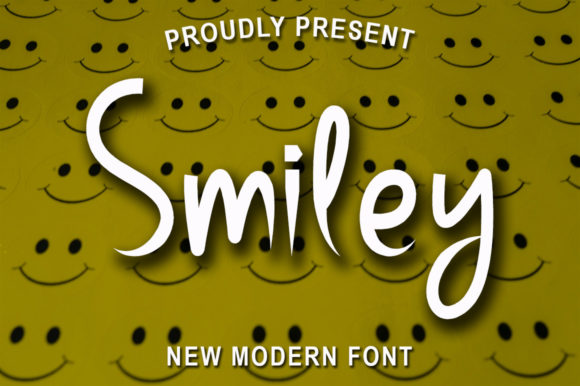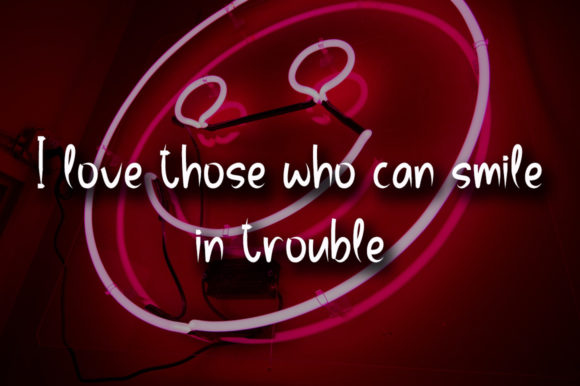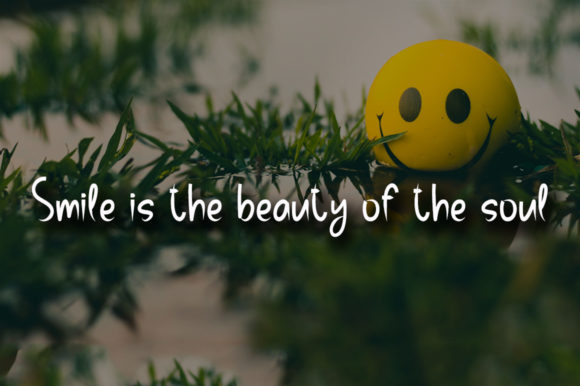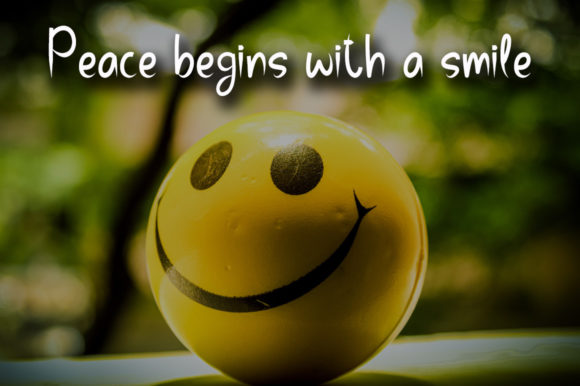
Smiley Font
About Smiley Font
Smiley is a sweet and cursive handwritten font. This gentle font will look gorgeous on a variety of design ideas. It will add a joyful and romantic touch to each of your projects!